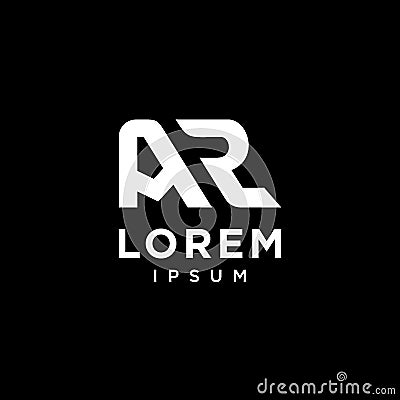
Initial A R RA AR Icon Logo Logotype Font Vector Design In Elegant Monogram Style
Initial A R RA AR icon logo logotype font vector design in elegant monogram style, elegant and simple A R monogram logo